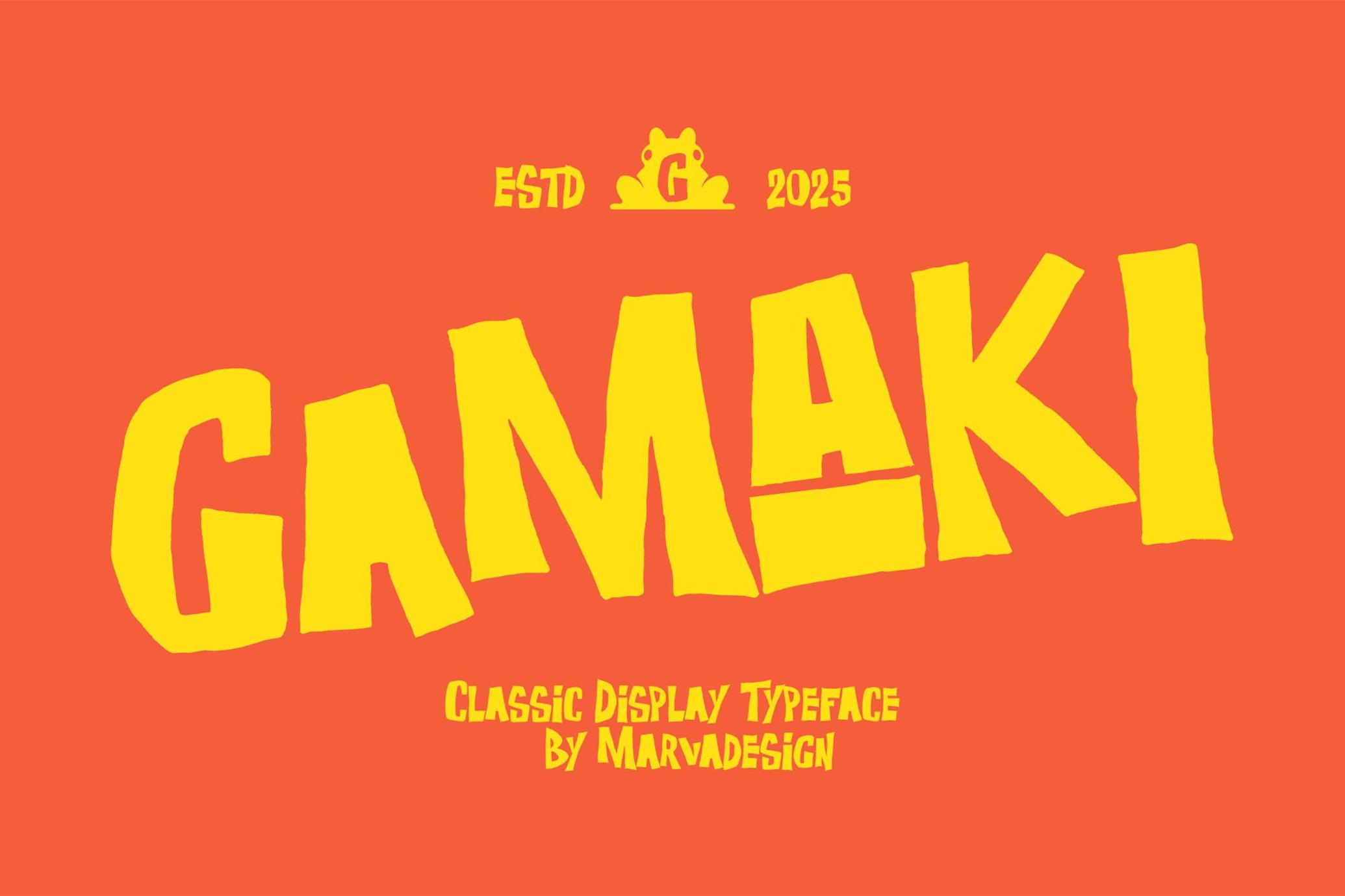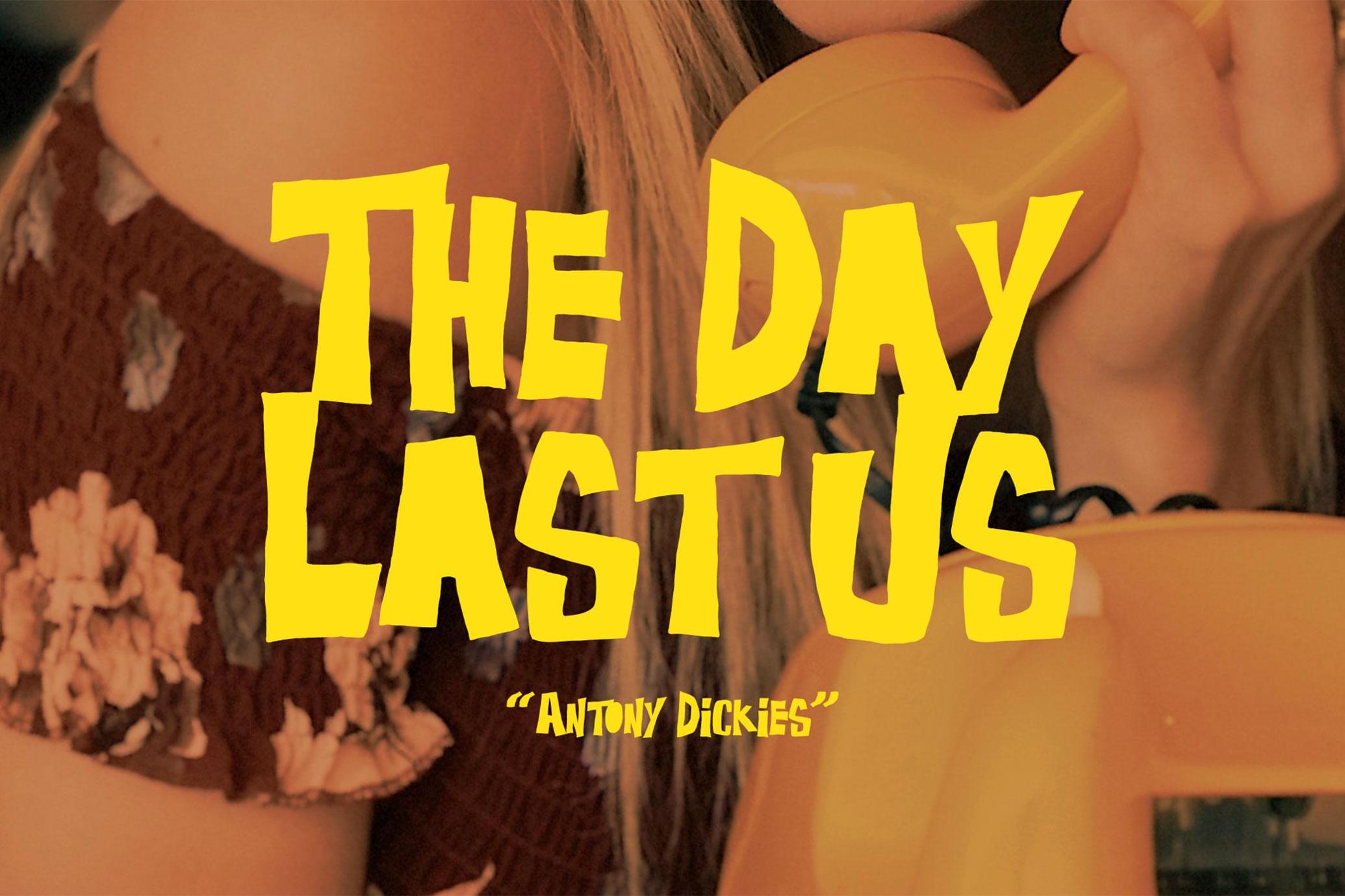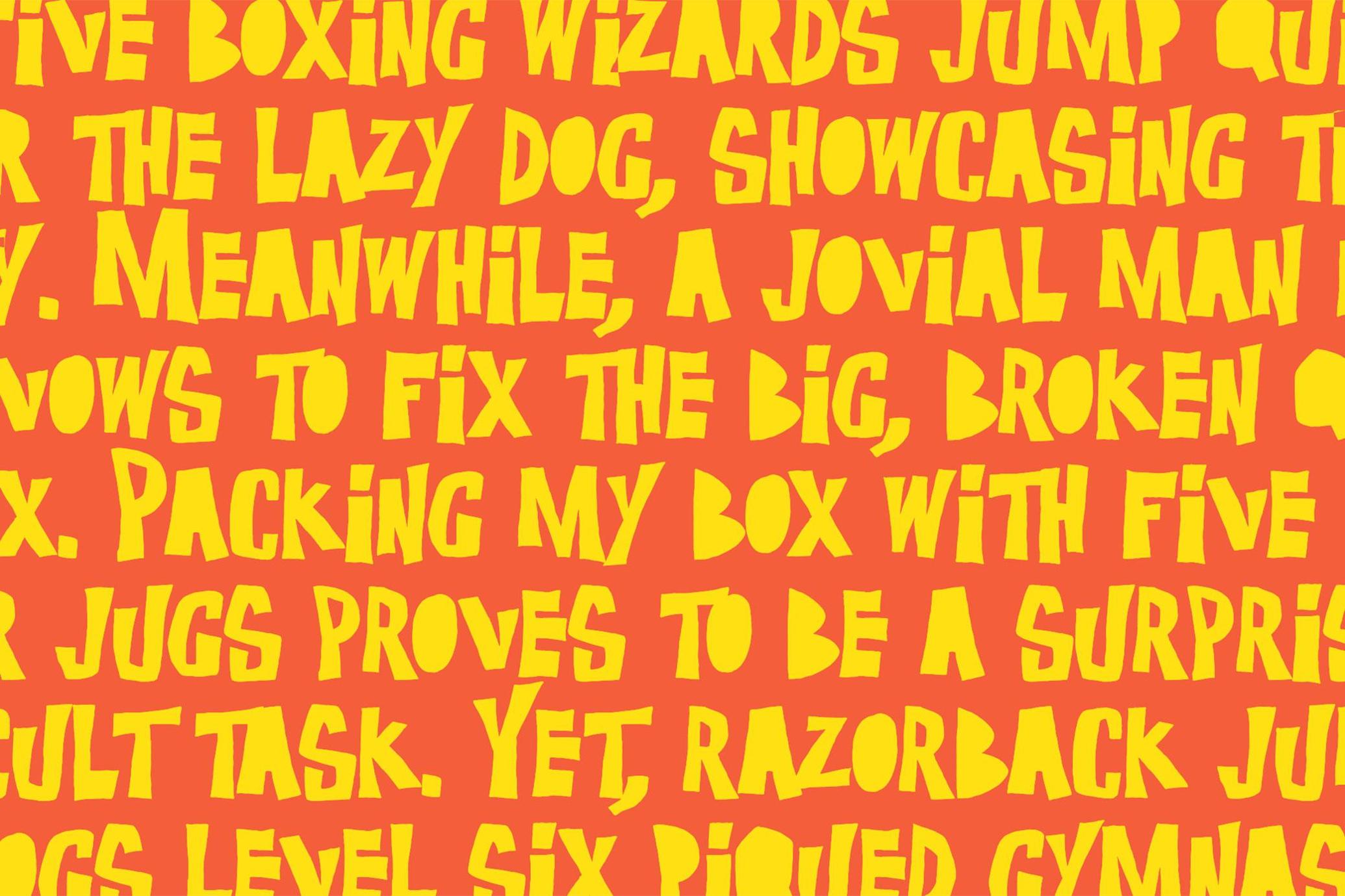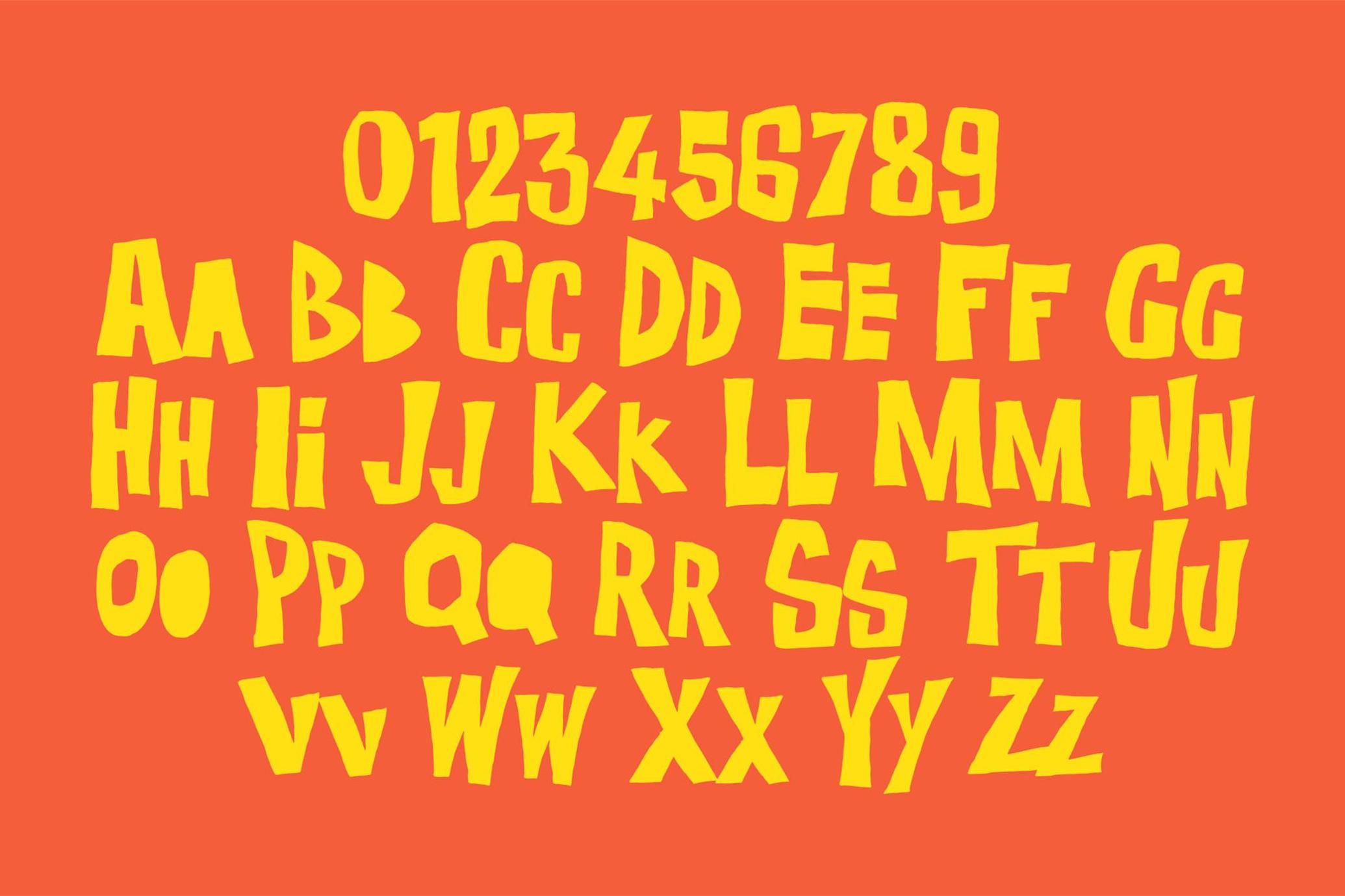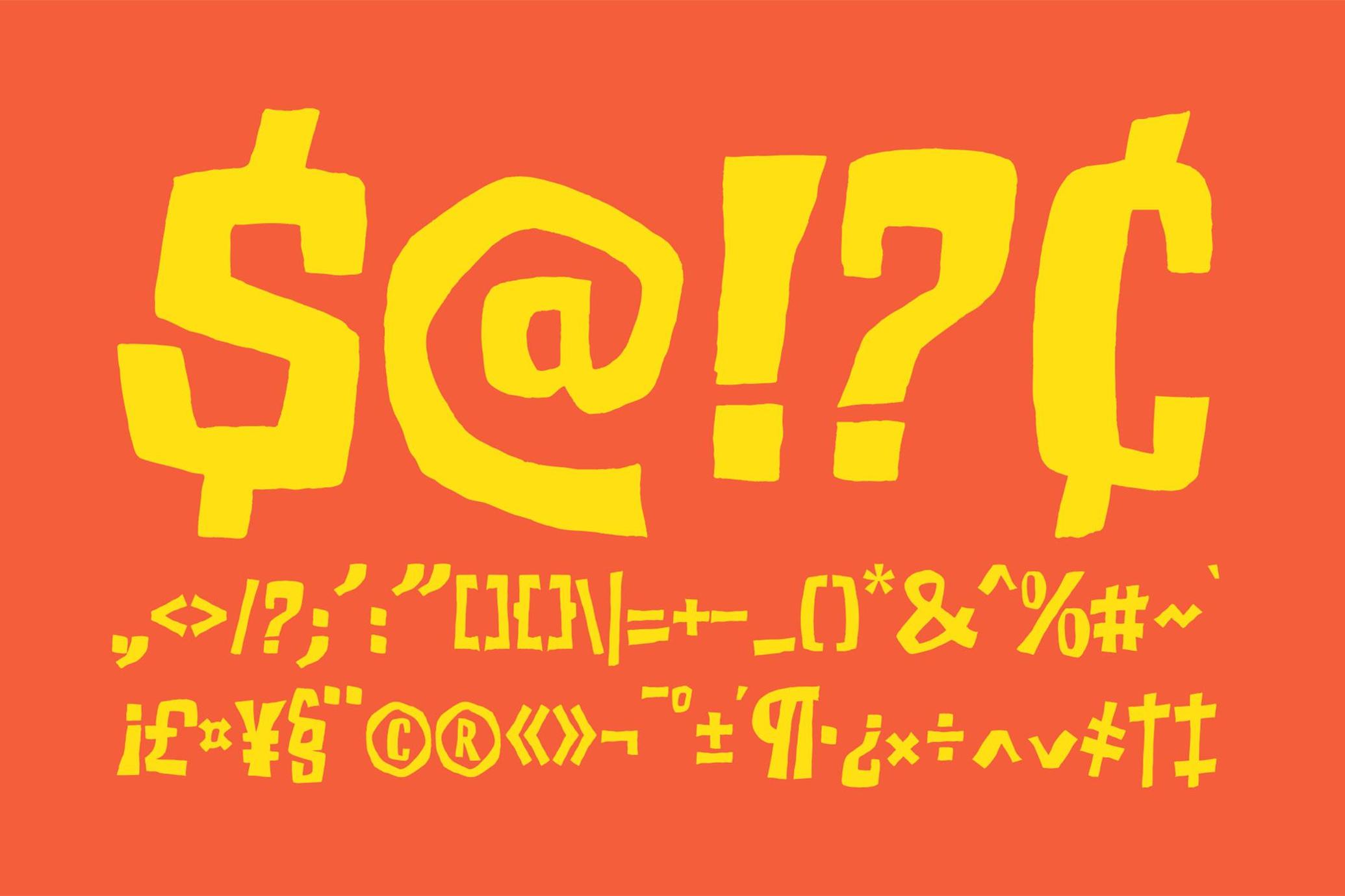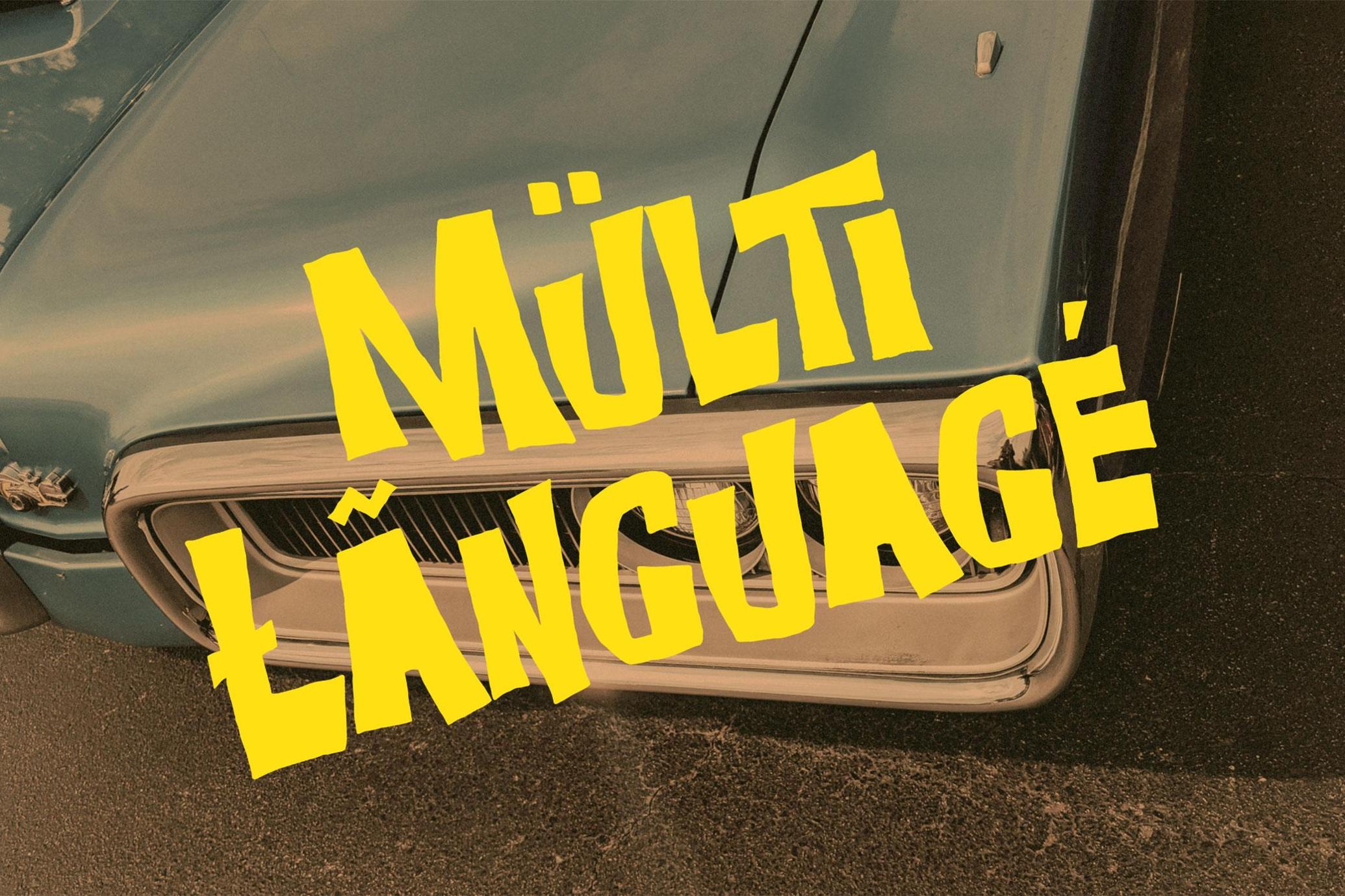
Gamaki — Classic Playful Font
Gamaki
Gamaki is like the mischievous cousin of SpongeBob’s SquarePants font — still goofy, still bold, but with a little more edge and a whole lot more wiggle. It’s hand-drawn, lopsided in the best way, and all about uneven baseline and chunky chaos. Think of it as the typeface equivalent of yelling “Ta-da!” while doing jazz hands. Perfect for kids’ stuff? Yes. Branding? Absolutely. Posters, greeting cards, flyers, t-shirt designs? You bet. The set of glyphs includes uppercase, lowercase, alternates, ligatures, and multilingual characters — because Gamaki may be silly, but it’s no slouch.